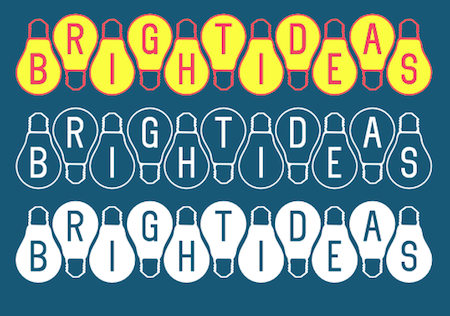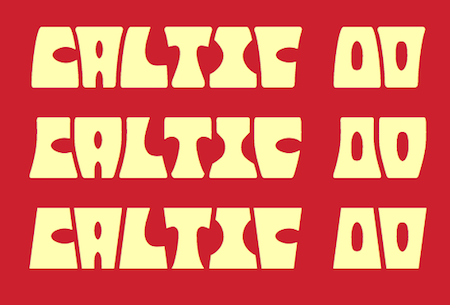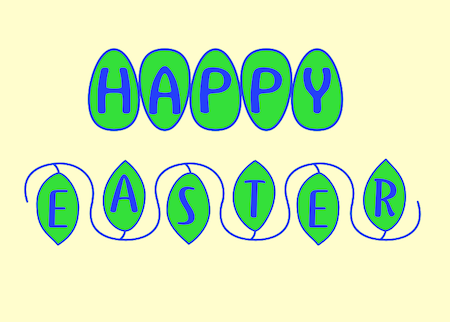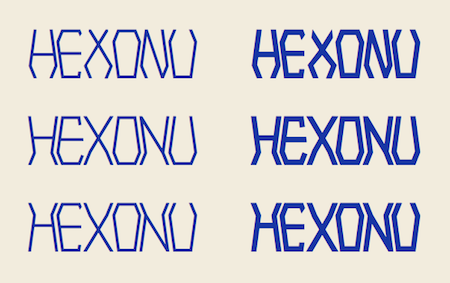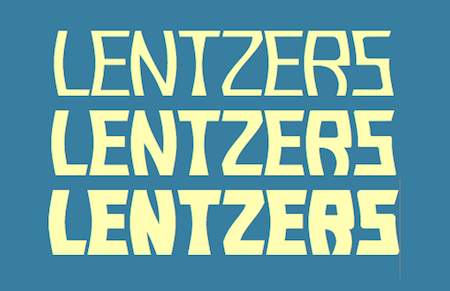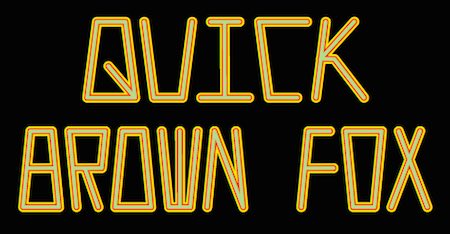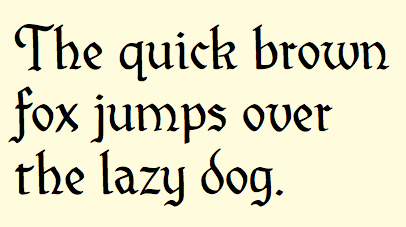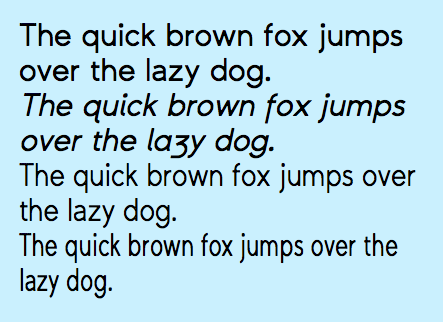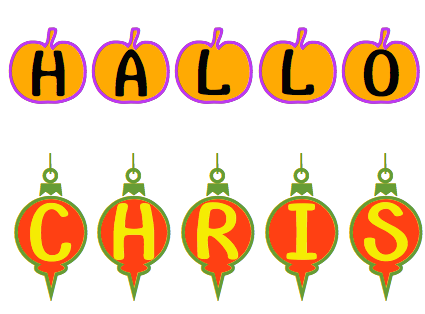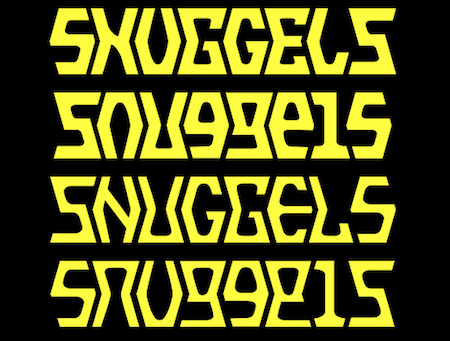
Snuggles began as a set of hexagons and hour-glass shapes that fit together. Letters were formed from these shapes with effort made to preserve as much as possible the original outlines. The result is two sets of letters that by themselves are awkward and misshapen and that only look good when mixed together. The OpenType contextual alternatives (calt) feature automatically alternates the sets in computer programs that support this feature.
Snuggles-Lower replaces the letters of Snuggles-Regular with lower-case shapes, but without ascenders or descenders, and the results are jarring. Both Snuggels-Regular and Snuggels-Lower have light versions.
A few years ago I did a maze in a maze book that used lightbulbs for cells. This lightbulb pattern seemed appropriate for another typeface in which there are two sets of characters that alternate. I derived the letters on the bulbs from an early sans-serif typeface of mine, Myhota-Bold. A sample of the result, called BrightIdeas, is shown on the left. BrightIdeas has two family members, one that has outlined bulbs and one with solid bulbs. They can be used in layers for added color.
Eggad and Vinetters are similar in that each have two character sets which are alternated by the OpenType contextual alternatives (calt) feature. Both have letters on objects, in one case eggs and the other leaves. In Eggad the eggs with big bottoms down are alternated with eggs with big bottoms up. In Vinetters leaves with base down are alternated with leaves with base up. As far as I can tell, no one else has used the calt feature in this way.
Hexanu is another typeface family in which there are two sets of letters that can snuggle next to one another and the snuggling is made easy by the OpenType contextual alternatives (calt) feature. The foundation shape of the families a a coffin shape and the six styles have three different ways to complement this shape. The typeface is monospaced.
The Caltic family of six develops the theme of PoultySign with its letters based on trapezoids. The letters fit together with alternating up and down trapezoids and this is done with automatically with the contextual alternatives (calt) OpenType feature. Caltric is much bolder than PoultrySign and the vertical sides of four of the six fonts are curved. The result is similar to some of the poster lettering from the hippie era, but I can find nothing quite like it.
The upper-case letters of Lentzers fit into the shape of a convex lens and the lower-case letters fit into the shape of a concave lens. The typeface was designed to have concave shapes alternate with convex shapes so the letters snuggle together and the OpenType contextual alternatives (calt) feature will automatically make this happen if your word processor supports it. (To get only concave or convex shapes, one must turn off the contextual alternatives feature.)
Inspired by a small headline in a 1932 newspaper, PoultySign has trapezoidal letters. It is monoline, monospaced, and all-caps. The upper-case letters are formed with the small edge of the trapezoid on top and the lower-case letters with the small edge on the bottom. The expected use is to alternate upper- and lower-case letters. The family has six styles with two widths each having three weights. Within each width the letters are spaced identically so they can be layered for bi- or tri-colored lettering.
Although I have done several sans-serif typefaces, I had none that were comparable to the mega-families that are increasingly common. In August and September of 2019 I created one with 30 fonts. It has three widths: normal, narrow, and condensed. The normal width has six weights and each has italics, the narrow five weights with italics, and the condensed four weights with italics. It is a generic sans that should work for text.
When searching for some family history in an 90-year-old college student newspaper, I was struck by the lettering of the title. Examining it closely, I realized it was hand drawn. I thought it was be an interesting challenge to complete the alphabet based on the three upper-case and nine lower-case letters. SJURecord is the result.
An upgrade to InsideLetters added two family members, InsideLettersHalloween and InsideLettersXmas. The first puts the letters from InsideLetters on pumpkins and the second puts them on Christmas tree ornaments. Most of the characters in these two additions already existed in remote unicode slots in the typefaces Brrrrr and HeyPumkin but only the most patient would want to dig them out and use them. These new faces make them easily available.
This typeface features eight images of dinosaur
skeletons that were used as stencils for decoration. My
son Matthew drew them, cut them out with a exacto knife,
then spray painted them. I photographed the results with
a digital camera and used the results to make this
typeface. Check the key map--some of the very large
critters are cut into pieces and put on several
keys--this may help printing in some situations. Have fun
with them.